The world’s most famous fonts are just about everywhere. When you become a designer, these serifs and line weights begin to pop out and you start to recognize them in the landscape. Each of these fonts you see comes with a story, a creator, a history and a fan base.
See how some of these famous fonts came to be and the designers who took the bold steps to create what would go on to change our visual world.
1. Helvetica
Designed by: Max Miedinger and Edouard Hoffman
Typeface style: sans-serif
Origins: Switzerland, 1957, at the Haas type foundry. Miedinger originally wanted to be a painter, but his father told him that he needed to focus on a more practical occupation. Miedinger took up type design and created Helvetica with Hoffman 30 years later. It is intended to fill a need for a neutral font that would work well for signage.
Claims to fame: Often considered the world’s most-seen font. Featured in the film Helvetica. American Apparel branding. Crate&Barrel logo. Lufthansa logo. Jeep logo. New York subway system signage. And so much more.
2. Bodoni
Designed by: Giambattista Bodoni
Typeface style: serif
Origins: Italy, 1798. Bodini was hired as the official typesetter for a number of Italian dukes. These dukes were enamored of his work and encouraged him to start a printing press at the palace in Parma. In his time he held the title “designer to the kings and king of designers”. After his death, his typesetting works were combined to create the font we now commonly know as Bodoni.
Claims to fame: One of the older typefaces still in use as a font today. Vogue Magazine. Mamma Mia! posters. Nirvana logo. Columbia Records‘ wordmark.
3. Times New Roman
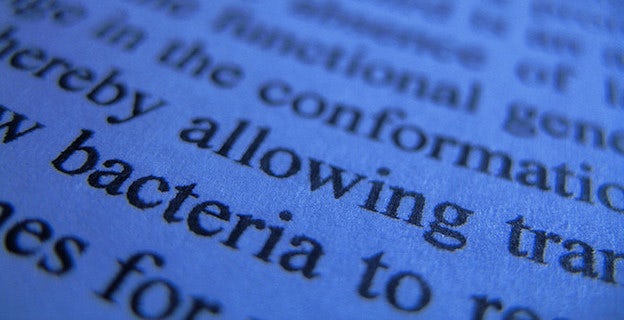
Designed by: Victor Lardent
Typeface style: serif
Origins: England, 1931. Commissioned by British newspaper The Times after typeface designer Stanley Morison criticized the paper for their poor readability. Morison assisted in-house designer Lardent to create this font that would come to be highly read for copy worldwide.
Claims to fame: Your college paper. Double spaced. 12 pt font. Often called “the font of least resistance”. Included in every version of Microsoft since 1992. Frequent use in books and newspapers. It’s high legibility makes it great for copy. No list of fonts could be complete without it.
4. Futura
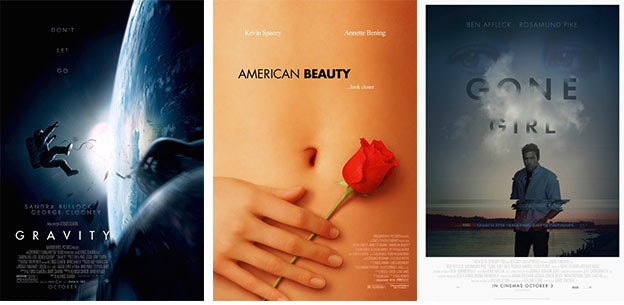
Designed by: Paul Renner
Typeface style: geometric sans-serif
Origins: Frankfurt, 1927 at the Bauer Type Foundry. Futura is often mistaken as the first geometric sans-serif font. That distinction, however, goes to Erbar, a font from the Ludwig & Mayer foundry. Futura was created as a reaction to this then-popular font. Due to the fact that the Bauer foundry was much larger than the Ludwig & Mayer foundry, Futura was the font that stood the test of time.
Claims to fame: A multitude of film posters, including Gravity, American Beauty, Gone Girl and Interstellar as well as television shows like Lost and Sesame Street. Used exclusively in the highly acclaimed graphic novel Watchmen. It is the favorite font of famous directors Wes Andersen and Stanley Kubrick and is often featured in their films.
5. Frutiger
Designed by: Adrian Frutiger
Typeface style: sans-serif
Origins: 1974. Frutiger, a Swiss designer, was commissioned by the United States’ Mergenthaler Linotype foundry. The company wanted a print version of the Roissy typeface he created for signage at the new Charles deGaulle airport in Paris. Frutiger believed the font had clarity and “nudity” due to it’s lack of additional features.
Claims to fame: The official font for many colleges and universities, including Claremont McKenna College, Cornell University, and the University of Southern California, among others. Featured on signage for public transit systems Bay Area Rapid Transit (BART), Amtrak and Sydney’s CityRail. Frutiger’s most notable might be considered its placement on the official Euro notes of the European Union.
6. Garamond
Designed by: Claude Garamont
Typeface style: old-style serif
Origins: One of the oldest typefaces still in use. Estimated to have arisen around 1530 in France. A time of political and social turbulence in France, this was an era in which new typefaces were needed to articulate new ideas. The typeface was later acquired by French and German foundries after Garamont’s death and has been revitalized for use as a font in the 20th century.
Claims to fame: Mostly used for copy. Still the most prominent font in French book publishing. Featured in the Abercrombie & Fitch logo. Famously purported to be able to save the United States $400 million due to it’s lighter strokes (spoiler alert: it was a miscalculation).
7. Akzidenz-Grotesk
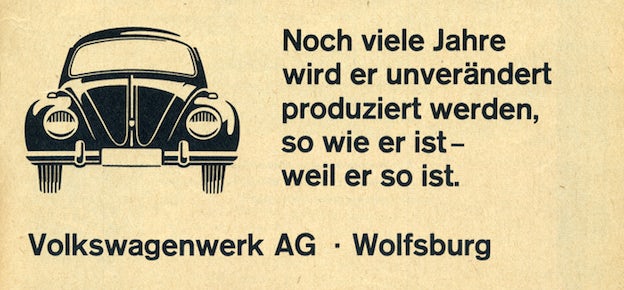
Designed by: Berthold Type Foundry
Typeface style: early san-serif (grotesque)
Origins: Creation rumored to be in 1898 at the Berthold Type Foundry. Exact origins are uncertain and many designers have been attributed as creators of this popular font. In 1950, the typeface was reconsidered and broadened by then-director of Berthold, Günther Gerhard Lange. It is this version that is now the most commonly used.
8. Avenir
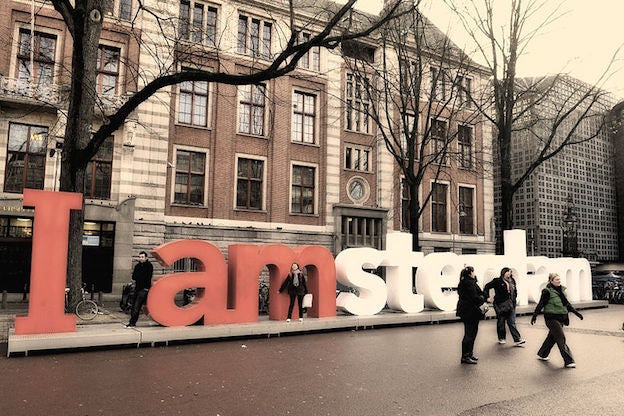
Designed by: Adrian Frutiger
Typeface style: geometric sans-serif
Origins: 1988. Avenir is the late-in-life design by Frutiger designer Adrian Frutiger. The designer considers this font to be his best work.
Claims to fame: Official font for the city of Amsterdam‘s corporate identity, including the famous I amsterdam sign. Apple uses Avenir for its Maps program. A version was created especially for Best Buy called Avenir Next for Best Buy.